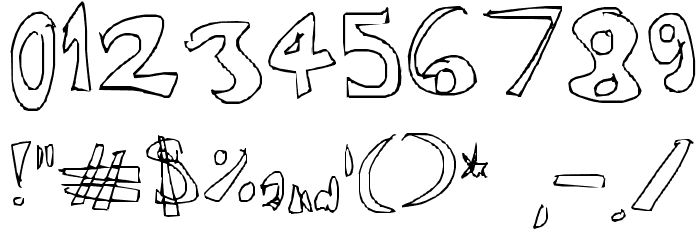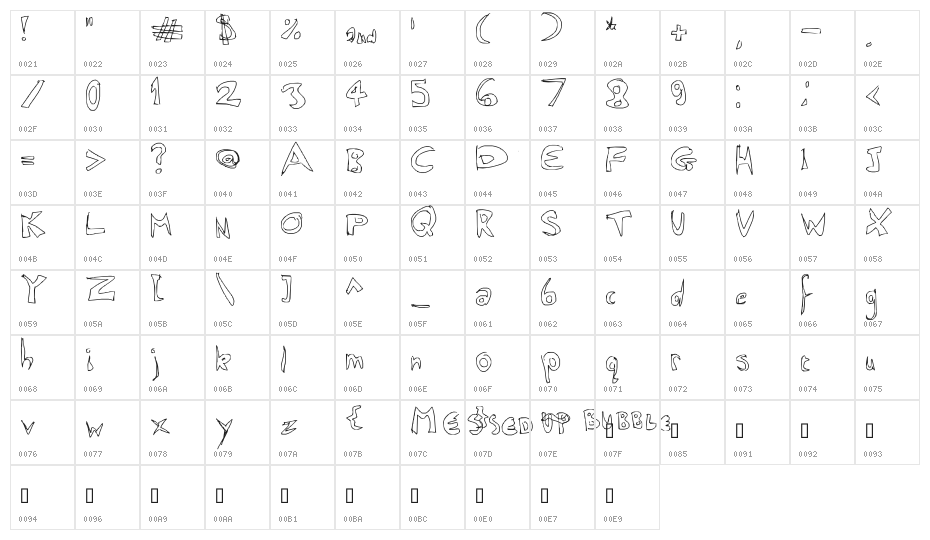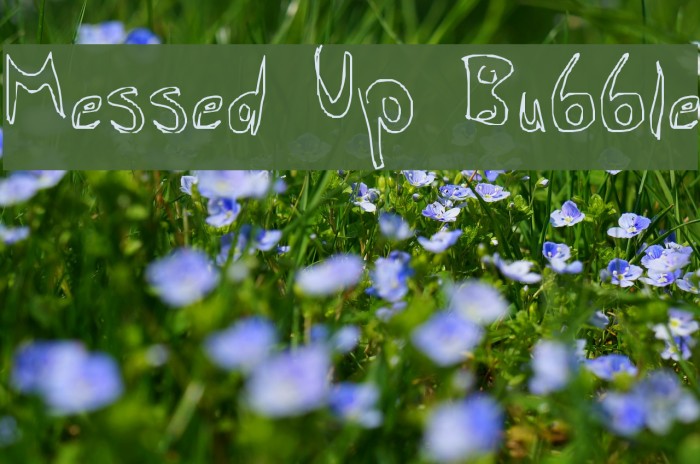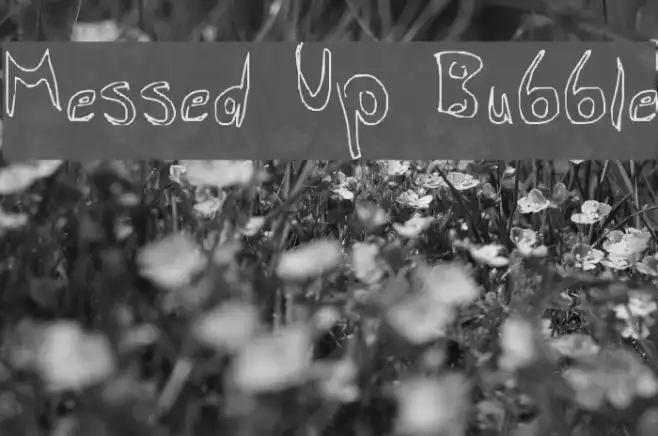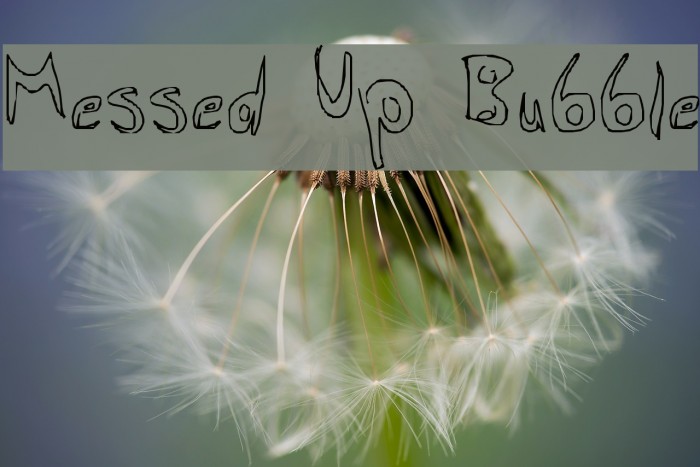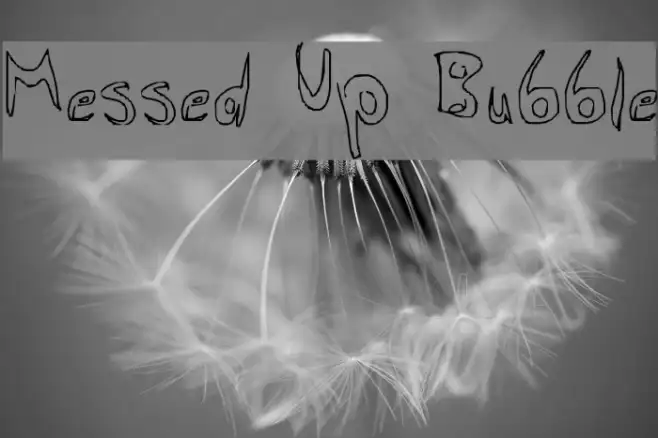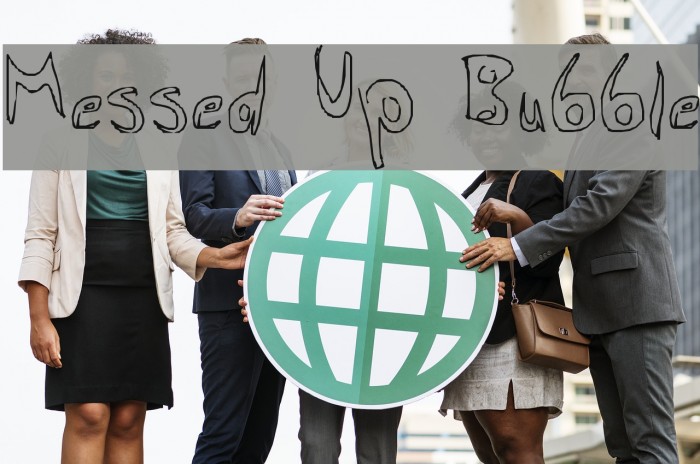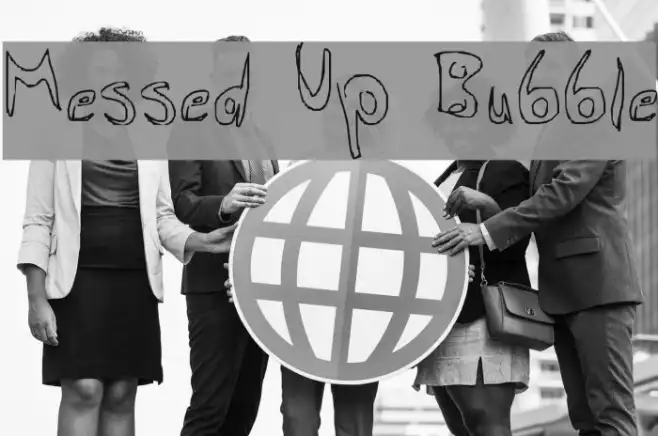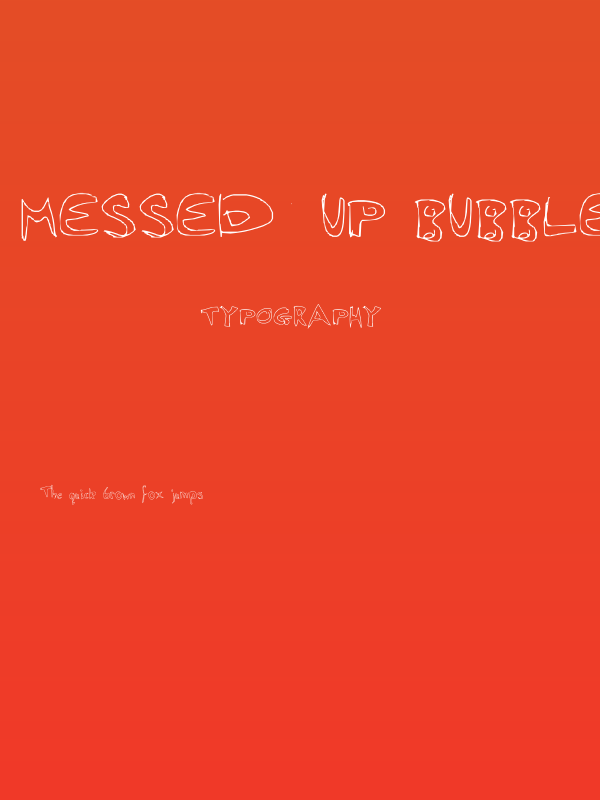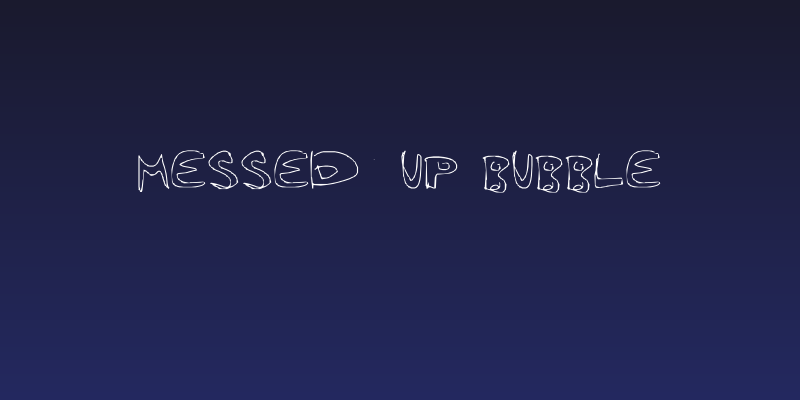
Messed Up Bubble Font
Messed Up Bubble Description
This font features a playful and chaotic style, with each character appearing as if it has been hand-drawn with a loose, freeform approach. The letters have an uneven, wavy outline that gives them a dynamic and energetic feel. Uppercase and lowercase letters maintain a consistent style, with exaggerated curves and irregular shapes. Numbers and special characters follow the same whimsical design, adding to the overall quirky aesthetic. The font's unique appearance makes it stand out, ideal for projects that require a fun and informal touch.